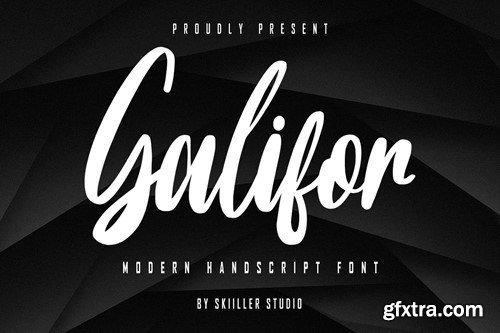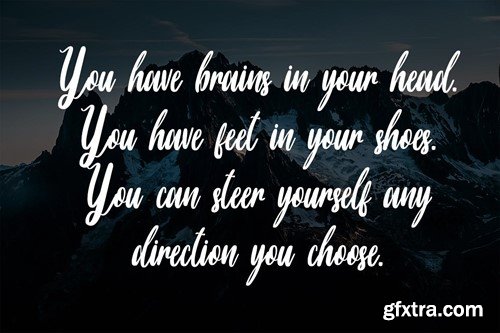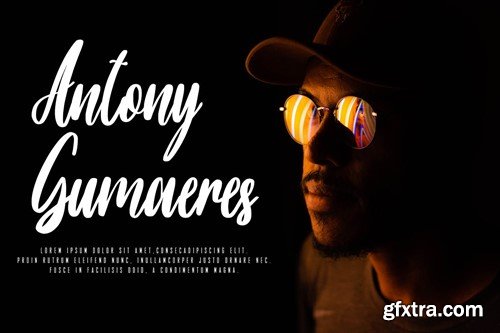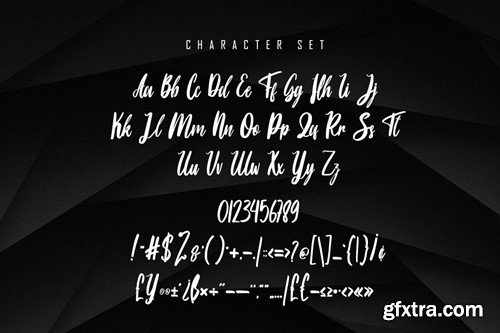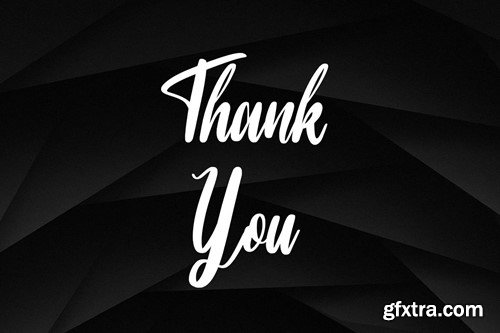
Galifor - Handscript Font XF26ADB
Galifor - Handscript Font
Galifor Handwritten script with a natural flow and beautiful style. Freaks is perfect for invitation design projects, prewedding, branding, logos, wedding designs, social media posts, advertisements, product packaging, product design, labels, photography, watermarks, invitations, stationery, and any project that requires handwriting tastes .
• Basic Latin Language Support (AÀÁÂÃÄÅCÇDÐEÈÉÊËIÌÍÎÏÑOØÒÓÔÕÖUÙÜÚÛWYÝŸÆß